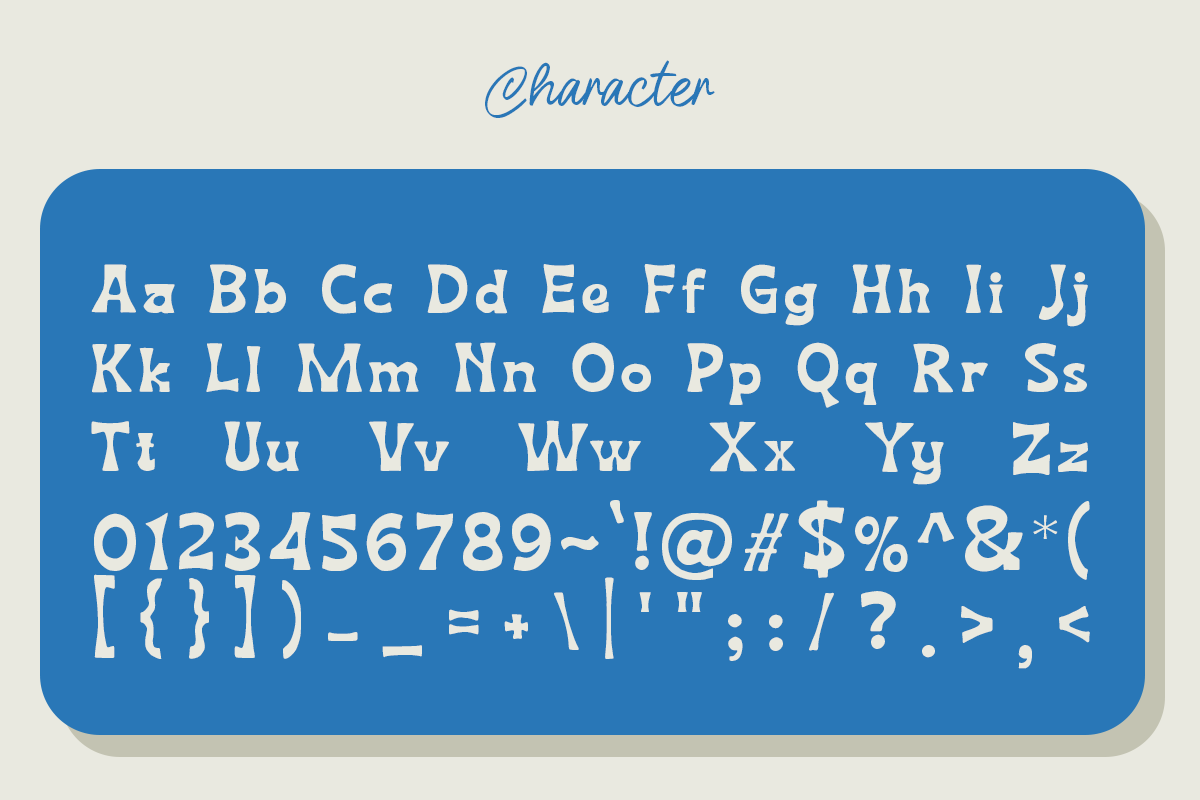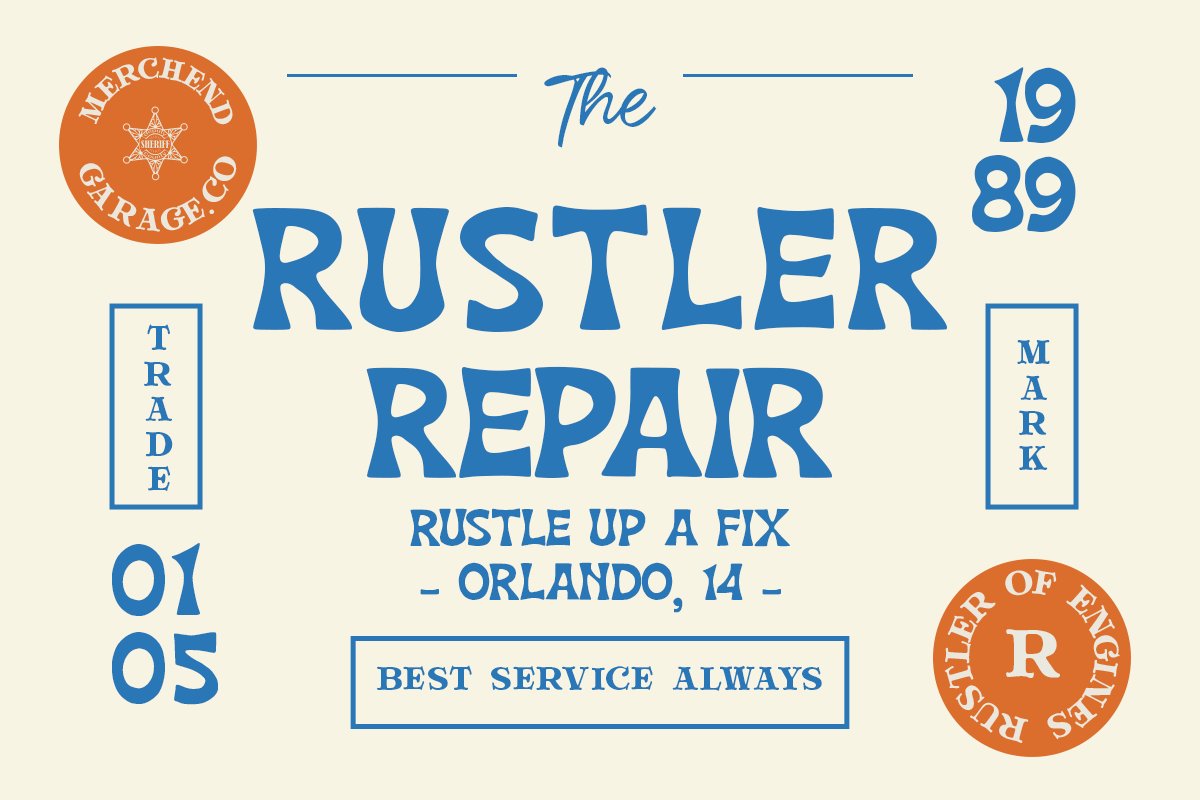
Western Font – Reatro Retro Font
Western Font – Reatro Retro Font is a versatile typeface ideal for various projects, including logos, branding, posters, blog headers, advertisements. The free version includes a full set of uppercase and lowercase letters, available in TTF, OTF, WOFF format.
Western Font – Reatro Retro Font
Western Font - Reatro Retro Font Preview
Western Font - Reatro Retro Font Sample
Western Font - Reatro Retro Font Character Map